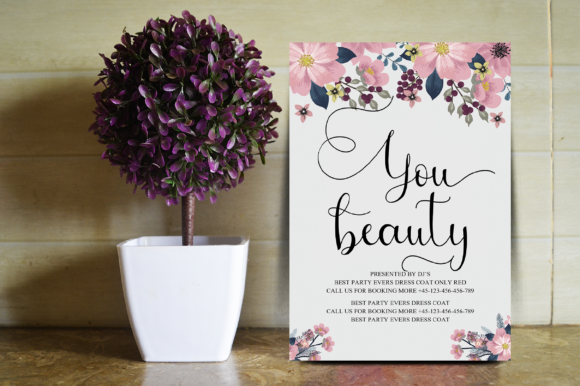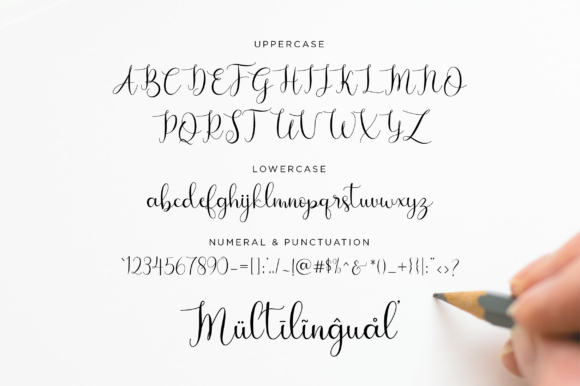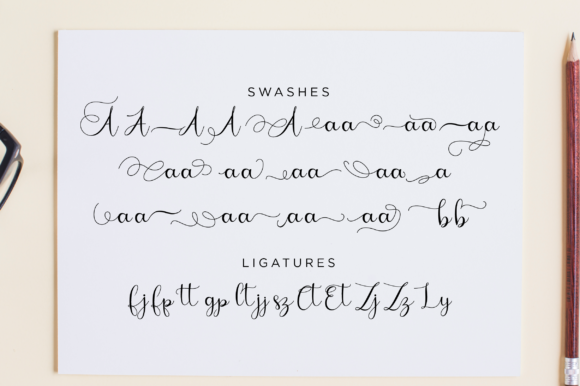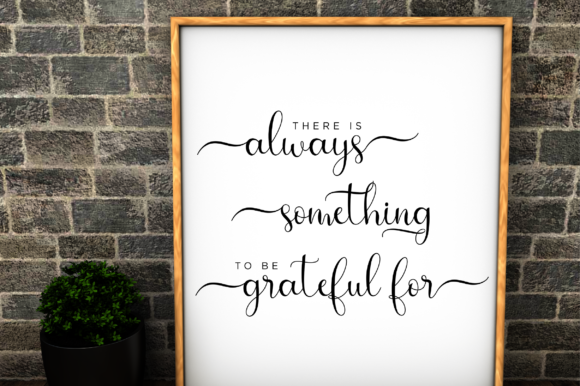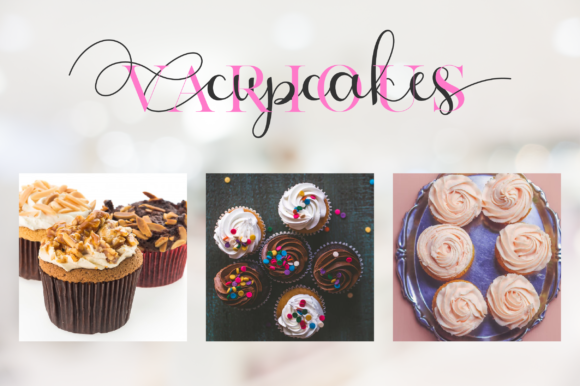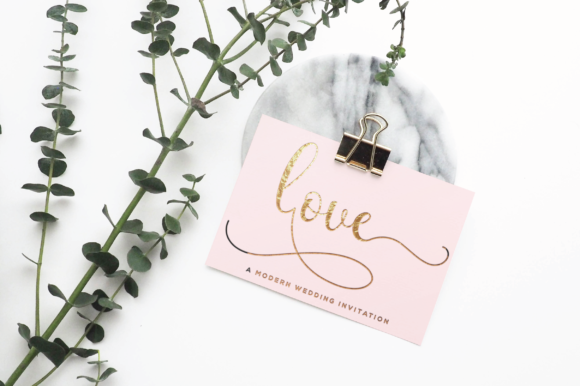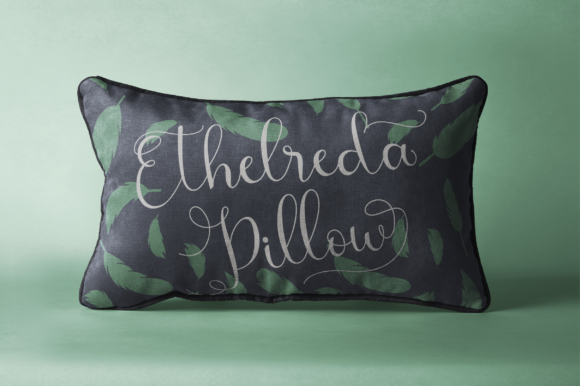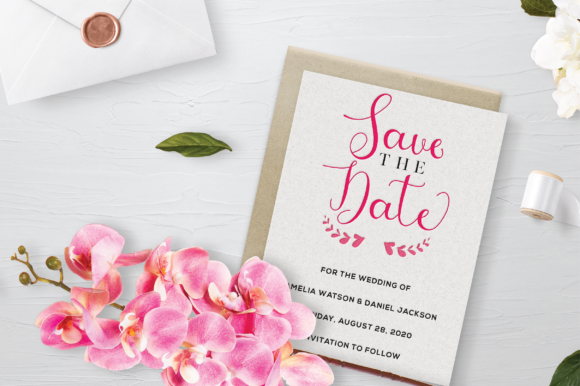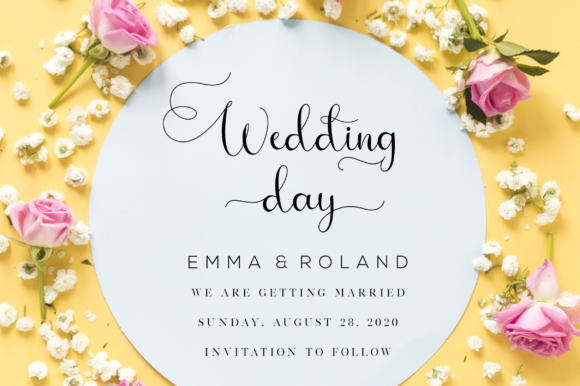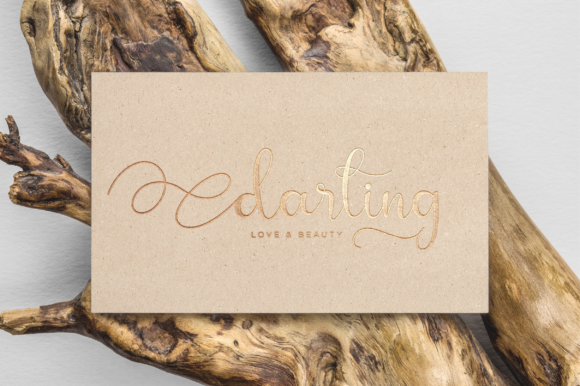
Bougainvillea Script Font
About Bougainvillea Script Font
The Bougainvillea is a stylish script font. It has a modern and classy look which can be used to add an amazing personal touch to your designs.
It can be used for logos, branding, invitations, stationary, wedding designs, social media, advertisements, labels, watermarks, and much more!